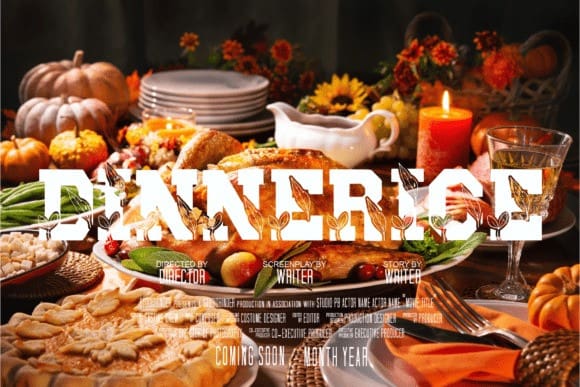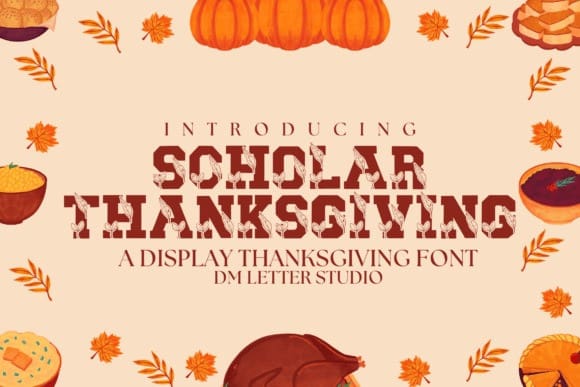
Scholar Thanksgiving Font is a bold and festive Thanksgiving varsity font that blends classic block lettering with warm seasonal charm. Inspired by traditional varsity typefaces, it delivers the familiar power of collegiate lettering with a spirited twist perfect for fall. Whether you’re designing for a cozy Thanksgiving dinner invitation, school bulletin board, holiday sweatshirt, or seasonal social media graphic, this font offers a memorable and dynamic presence.
Crafted in an all-caps style, Scholar Thanksgiving keeps your message loud, proud, and easy to read. Its sharp lines and strong vertical rhythm make it perfect for both print and digital formats. This font doesn’t just scream “team spirit,” it does so with a touch of harvest warmth and autumn flair. Use it for classroom boards, Thanksgiving menus, craft projects, signage, back-to-school Thanksgiving events, or even playful Black Friday promotions. Its versatility extends across Cricut/Silhouette cutting machines, Canva, Adobe Illustrator, Procreate, and more.
Whether you’re a teacher prepping holiday materials, a designer creating merchandise, or a crafter assembling seasonal gifts, Scholar Thanksgiving will give your work a bold, spirited, and celebratory look.